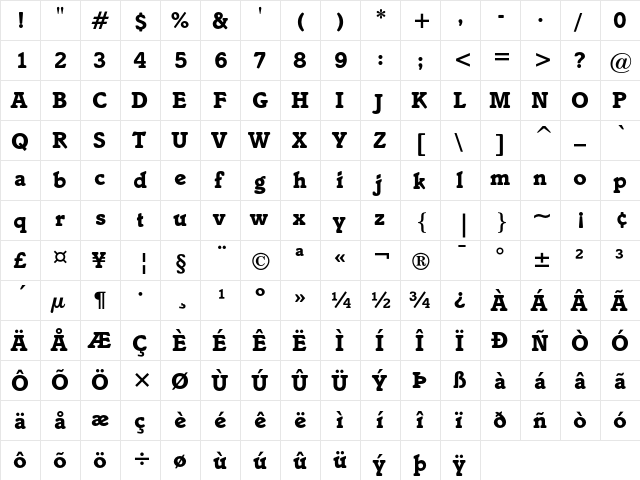
ITC Italia Bold
Design Context for ITC Italia Typeface
ITC Italia is a composed and adaptable typeface that performs quietly and consistently across a wide range of design contexts. Its bold stroke weight gives it real presence on the page.
Pro Tip: Pair ITC Italia with a font of contrasting weight or personality to build a more expressive typographic hierarchy.